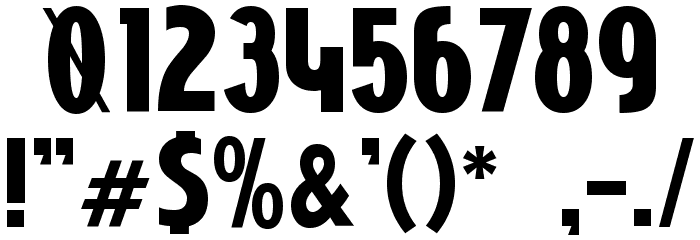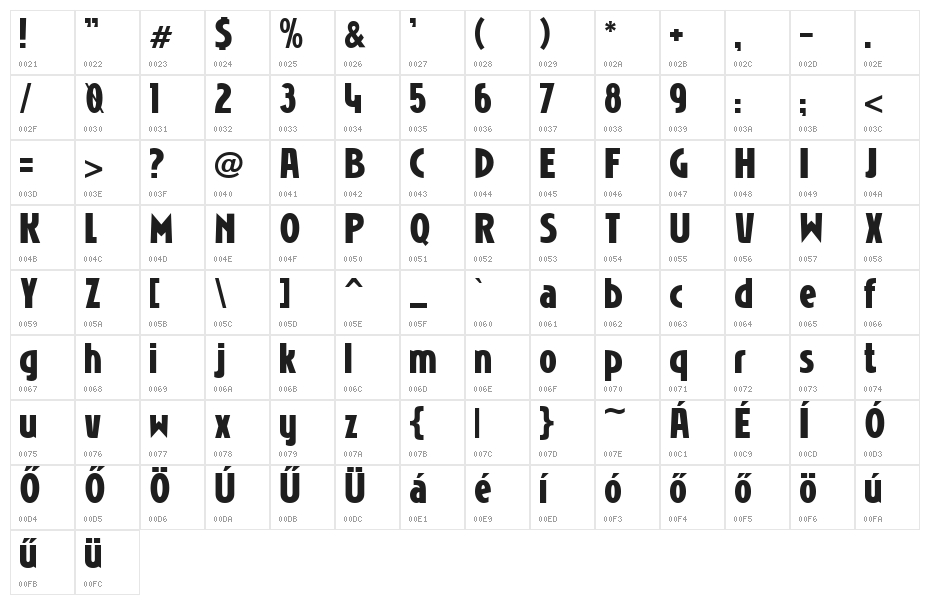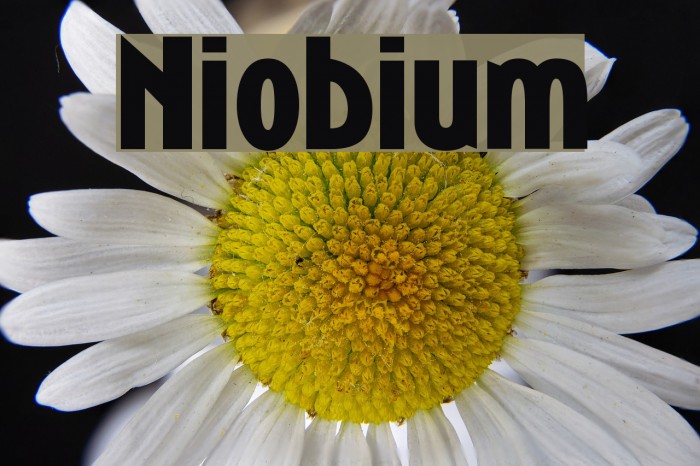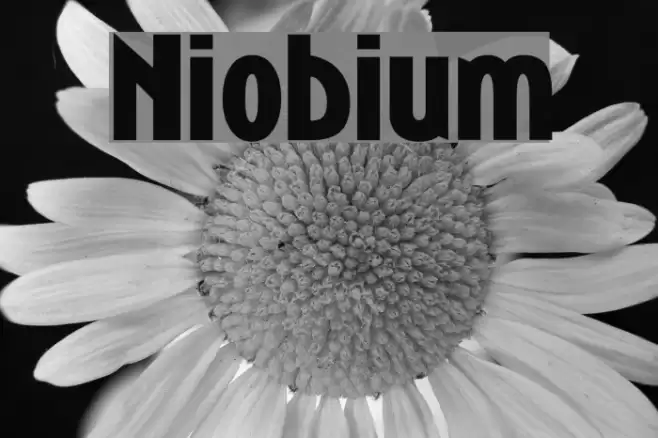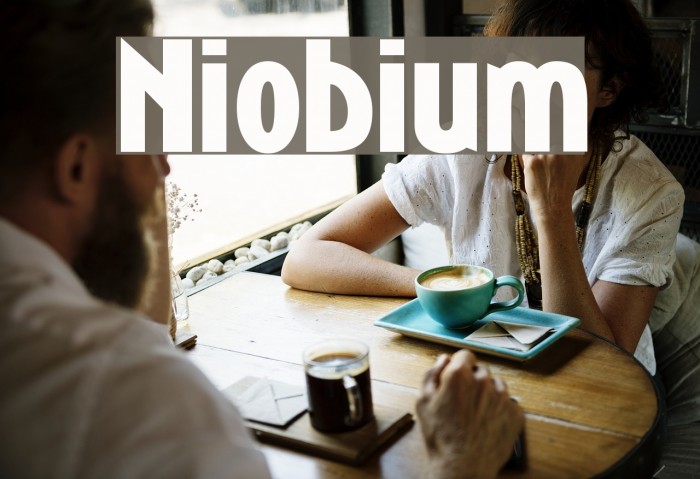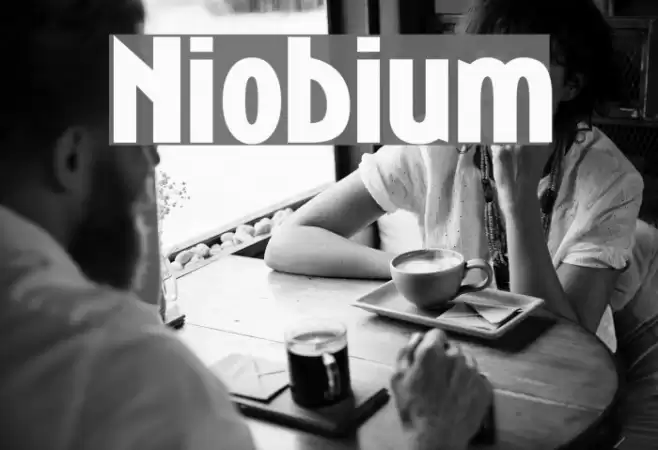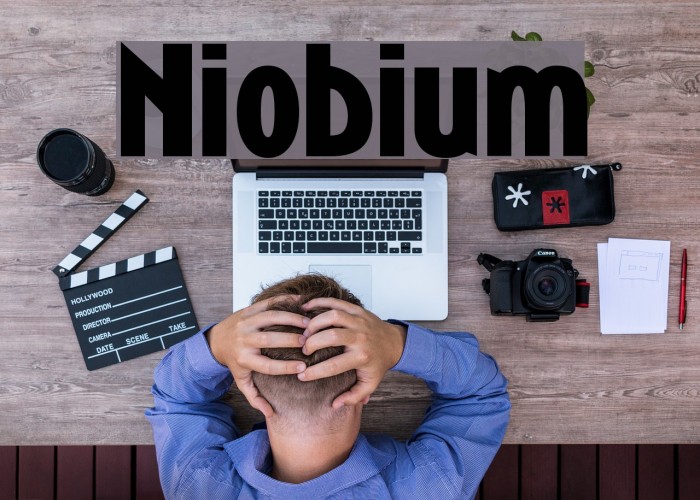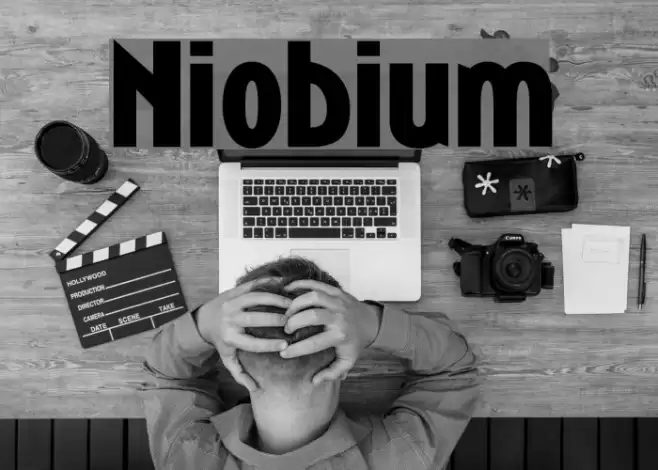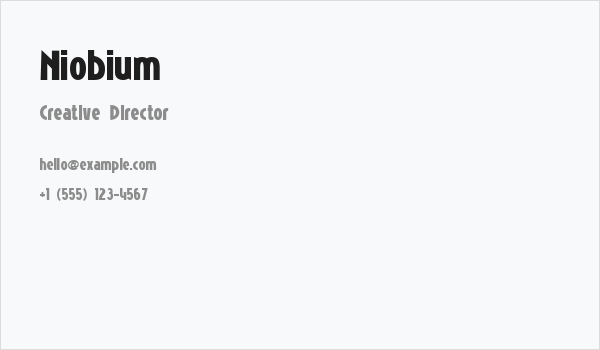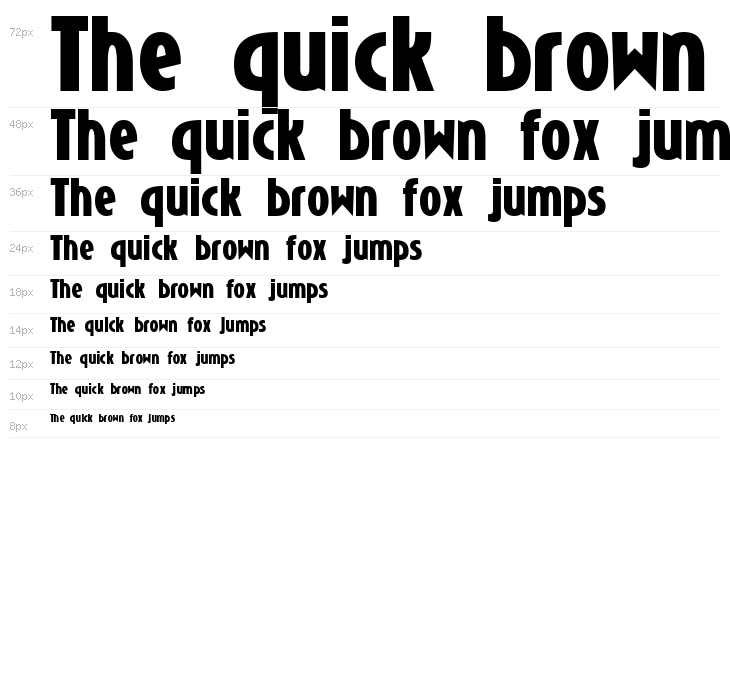
Niobium Font
Niobium Description
This font features bold, geometric letterforms with a strong presence. The characters are uniformly thick, giving it a robust and impactful look. The uppercase letters are particularly striking with their solid, block-like appearance, while the lowercase letters maintain a consistent weight and style. The numbers and special characters follow the same bold design, ensuring a cohesive look across all text elements. The overall style is modern and assertive, making it suitable for attention-grabbing headlines and titles.
| Proposed Projects | Ideal for posters, headlines, branding, and any design requiring a bold statement. |